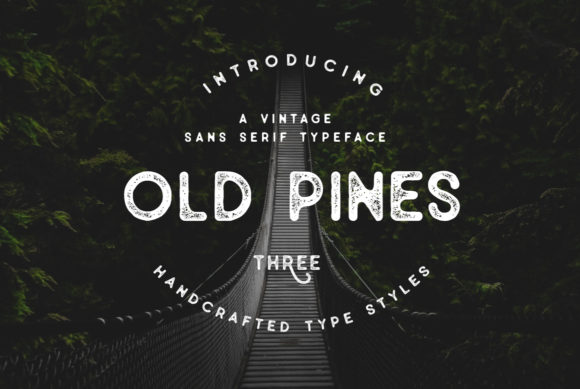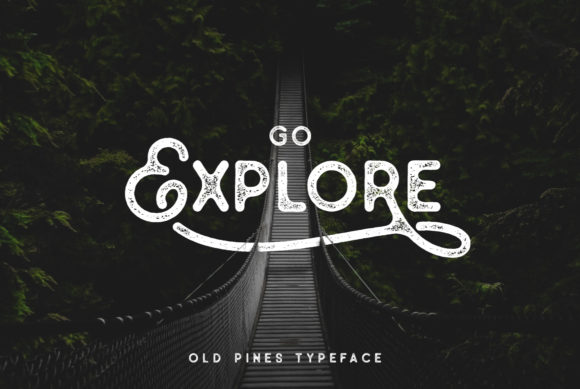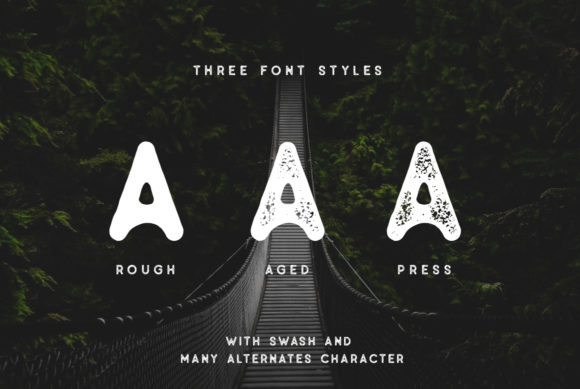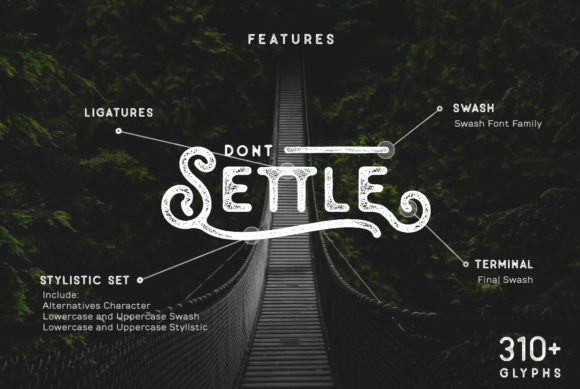
Old Pines Font: A Versatile Vintage Sans Serif for Rustic Logo Design
About the Old Pines Font
Welcome to the world of Old Pines Font, a typeface that will inspire your next great project. Old Pines is a vintage sans serif font, carefully handcrafted to become a true favorite. Its casual charm makes it appear wonderfully down-to-earth, readable and, ultimately, incredibly versatile. This font will look outstanding in any context, whether it’s being used on busy backgrounds or as a standalone headline!
Old Pines excels as a display font for headlines, logos, and short-form text on posters or packaging. Its casual charm works well for brands aiming for a friendly, approachable aesthetic—think coffee shops, craft breweries, or small-town businesses. However, its vintage styling and relatively open letterforms make it less suitable for body copy or UI elements requiring high legibility in smaller sizes.
Pairing Old Pines with a crisp sans-serif like Montserrat for body text provides a strong contrast and balanced readability. For a more vintage feel, consider a complementary serif such as Playfair Display for supporting text. A script font like Great Vibes could add a touch of playful elegance in specific applications, such as handwritten-style subheadings.
The overall personality of Old Pines is relaxed and approachable, yet with a touch of vintage sophistication. Its slightly irregular letterforms maintain visual interest without sacrificing legibility in larger sizes.